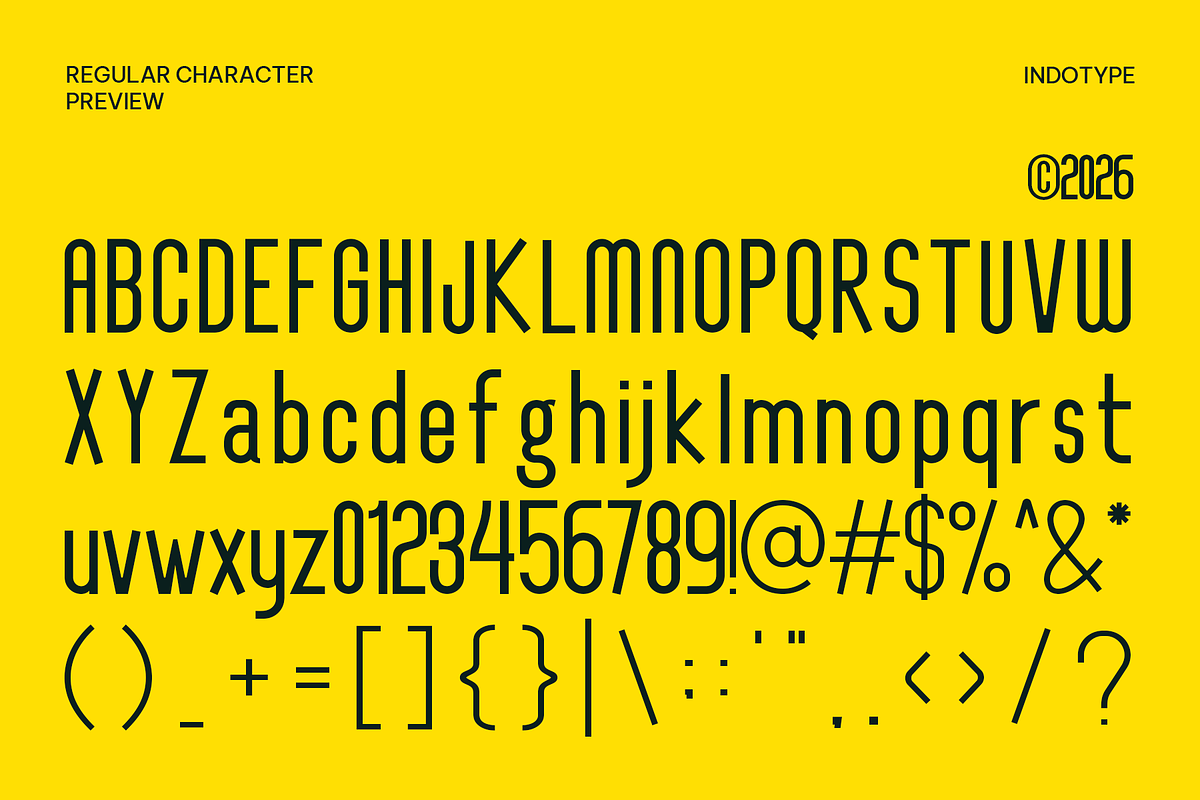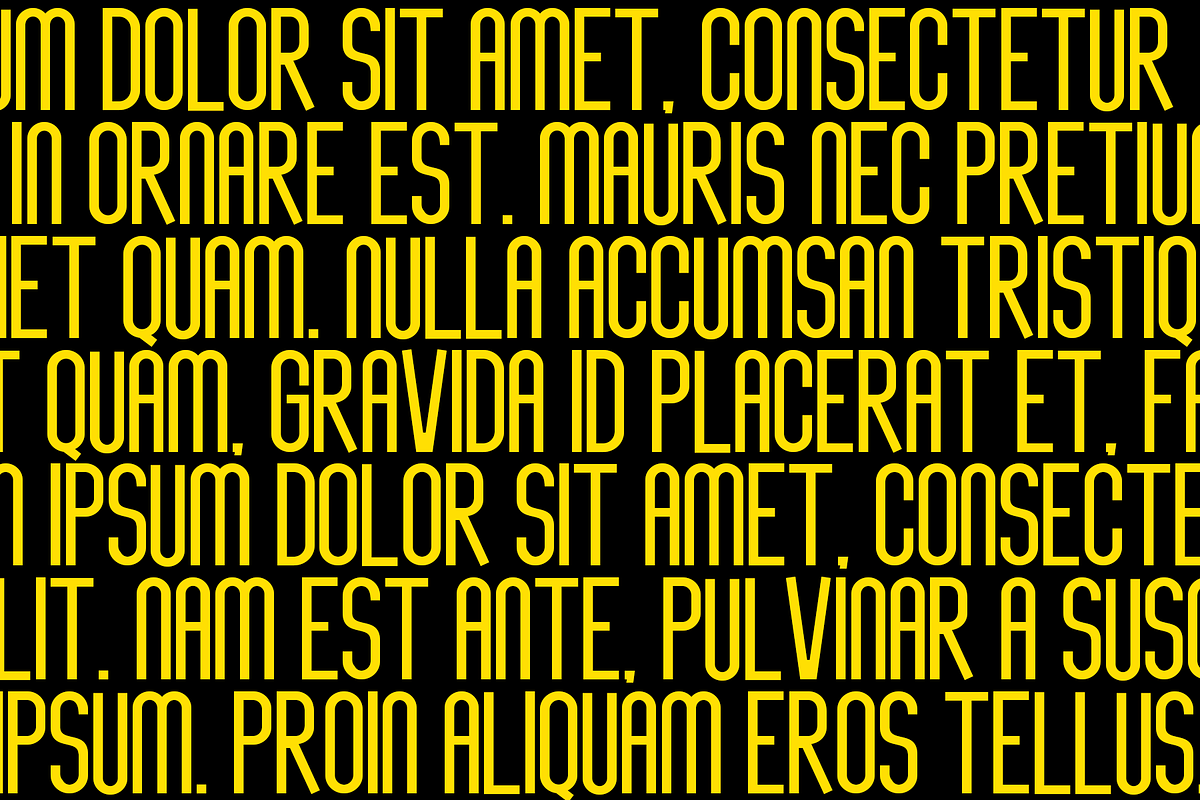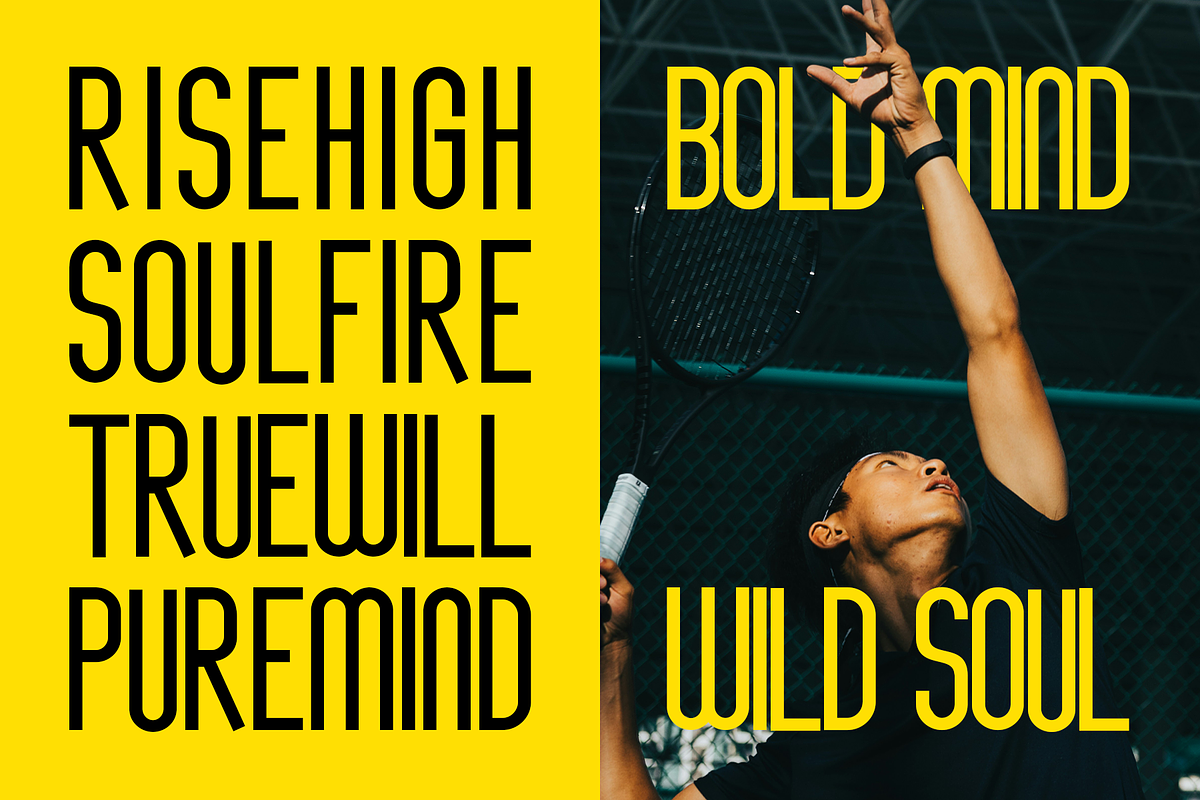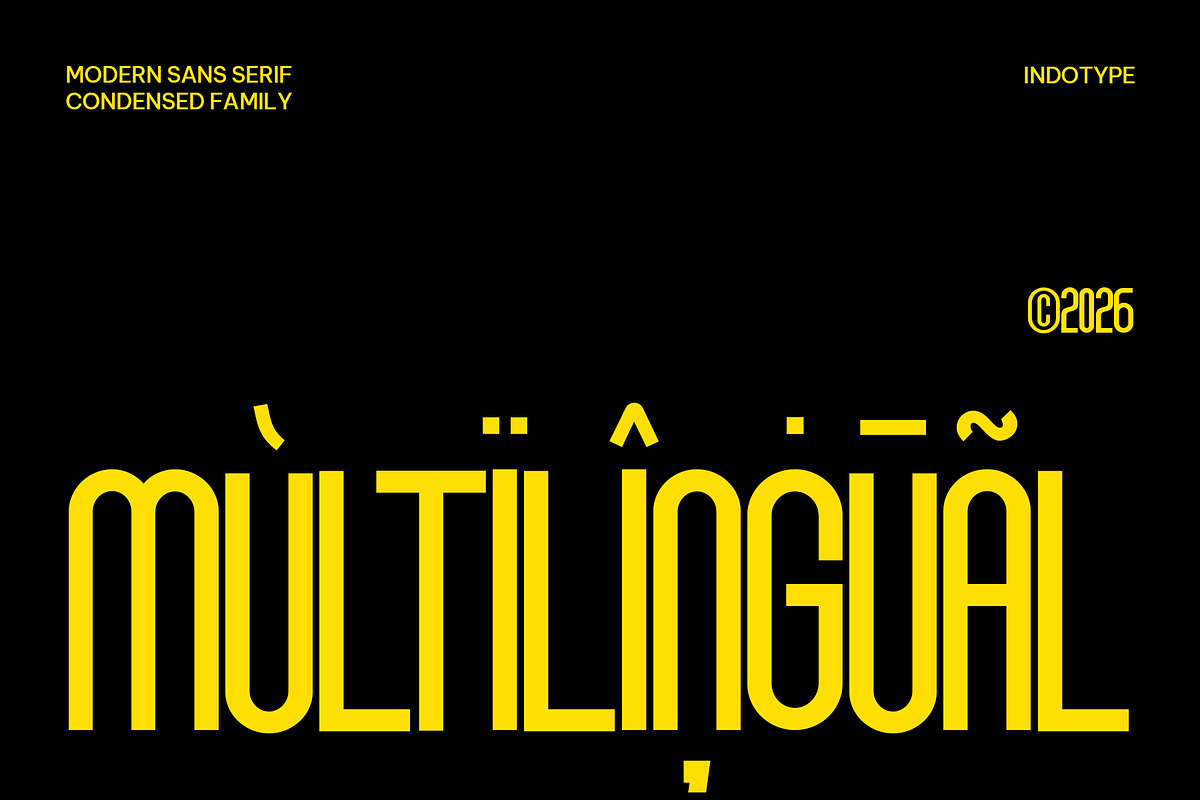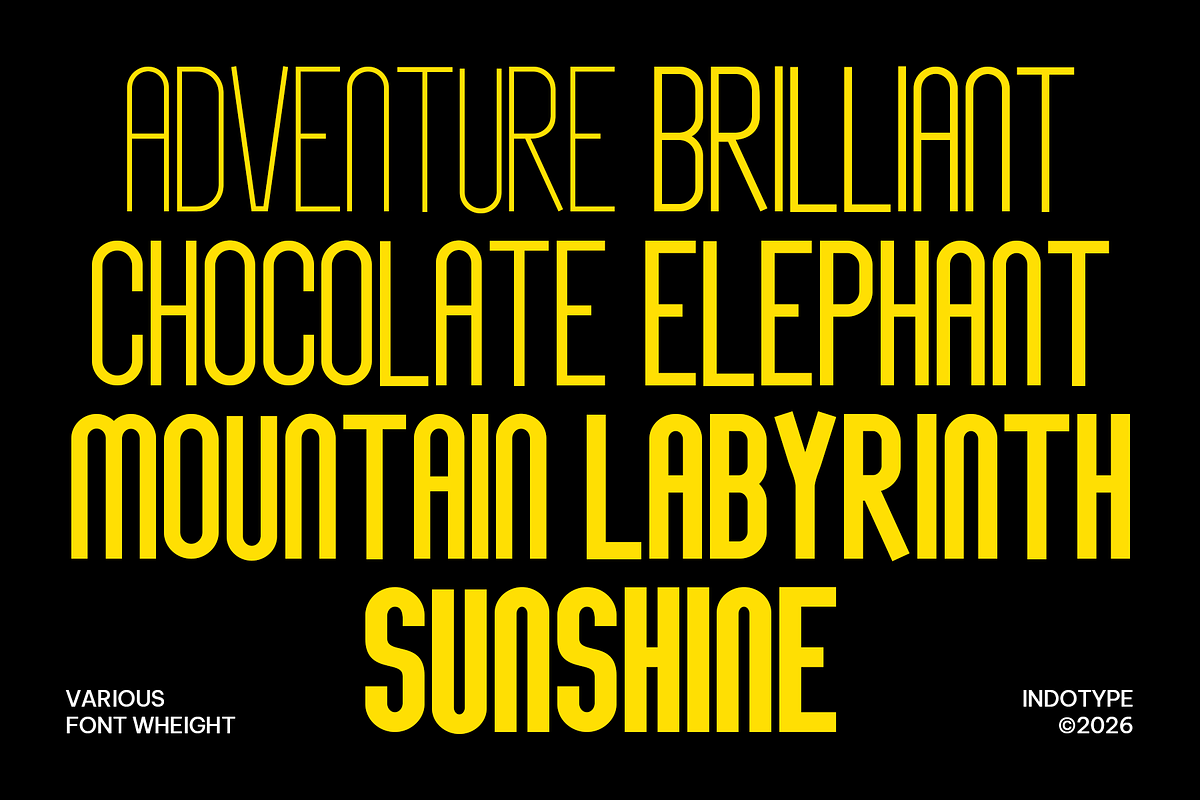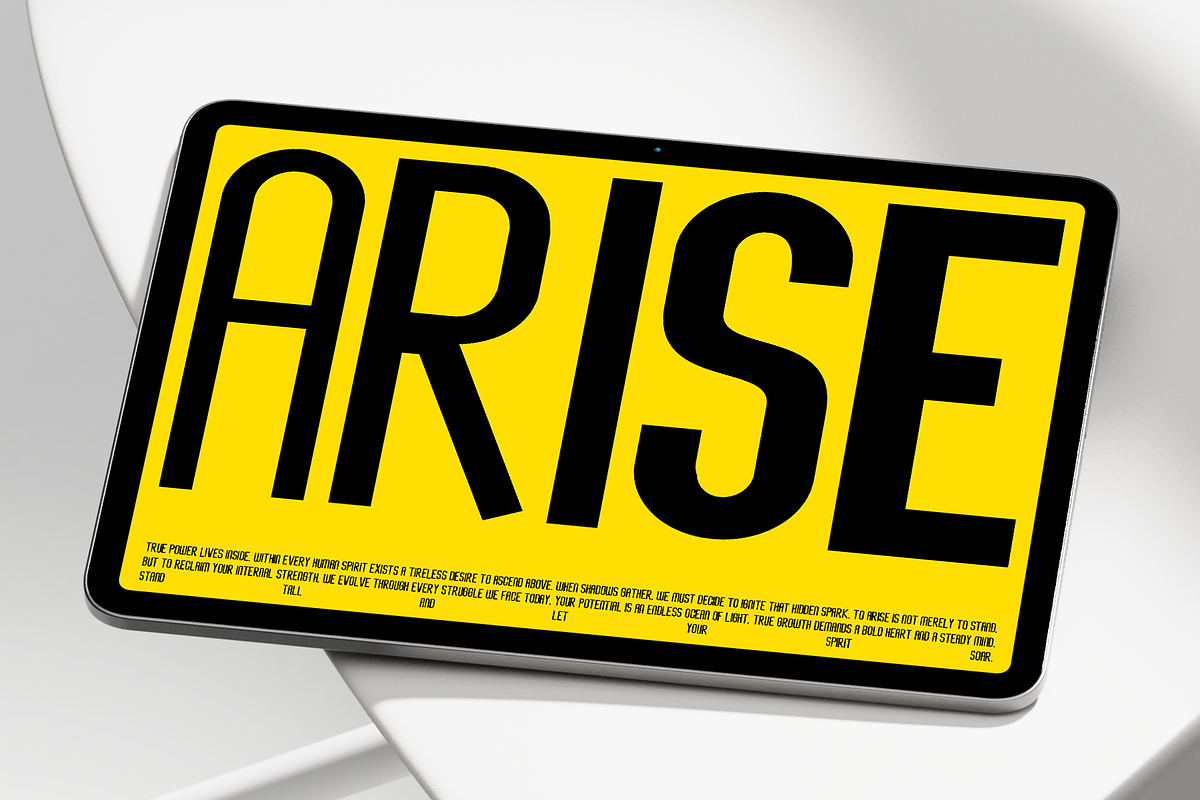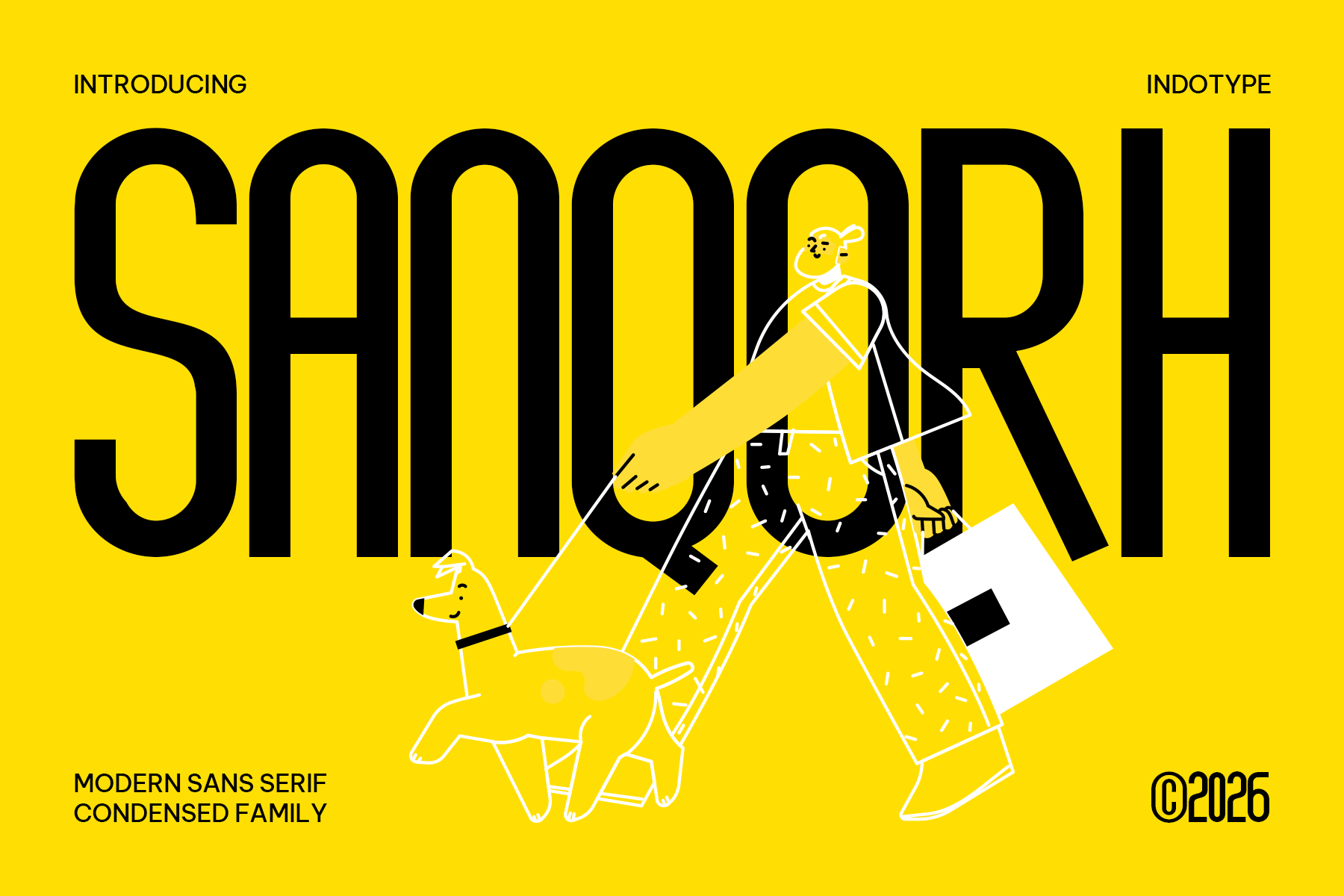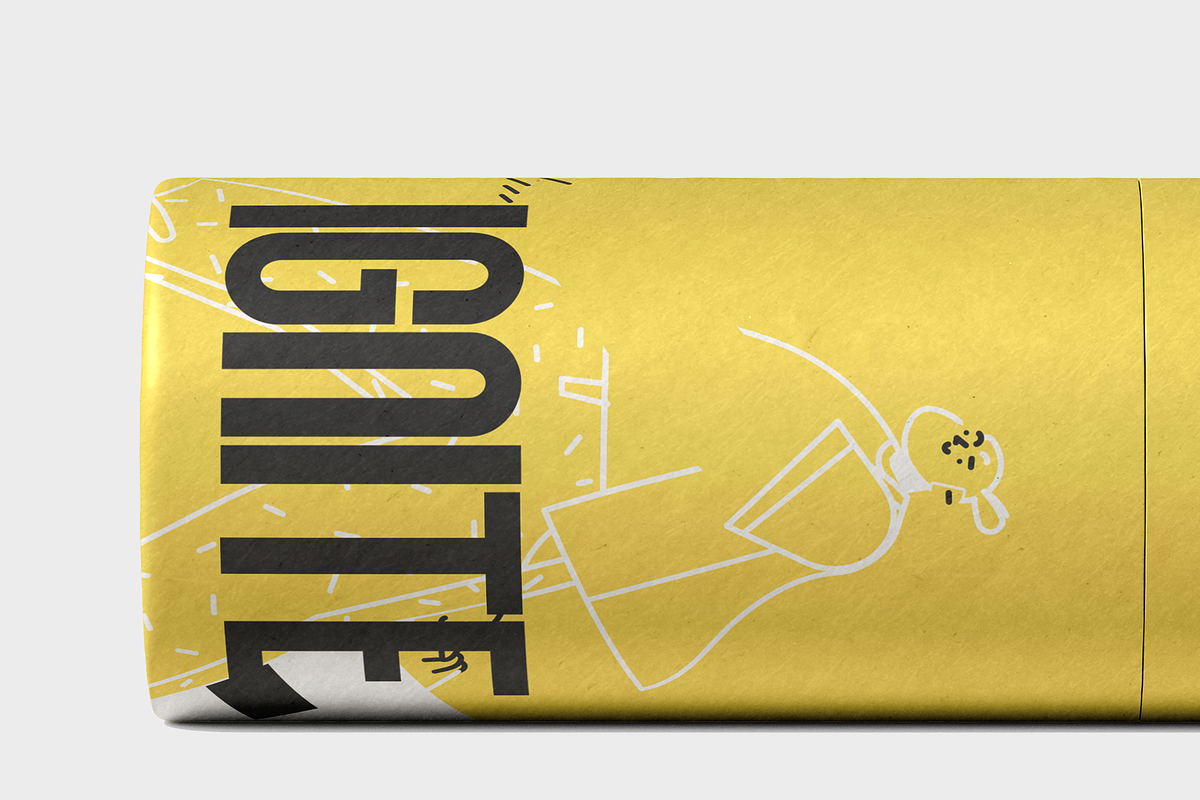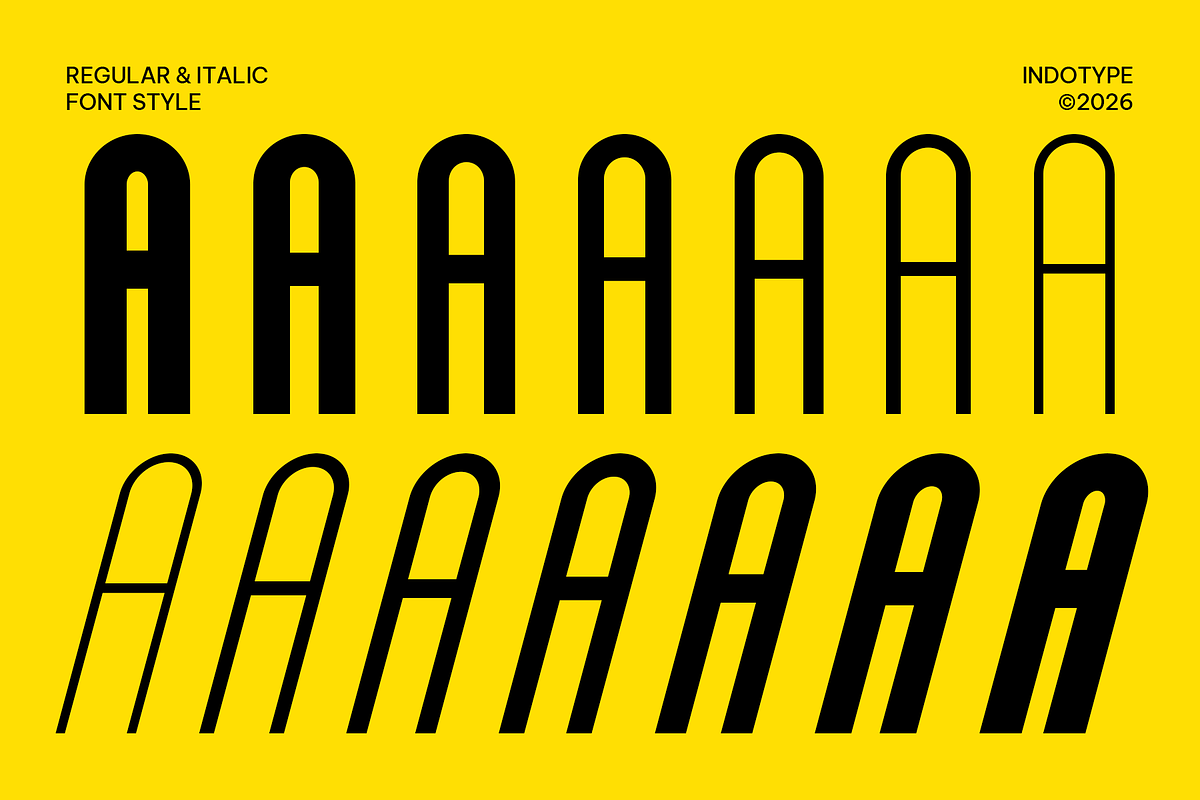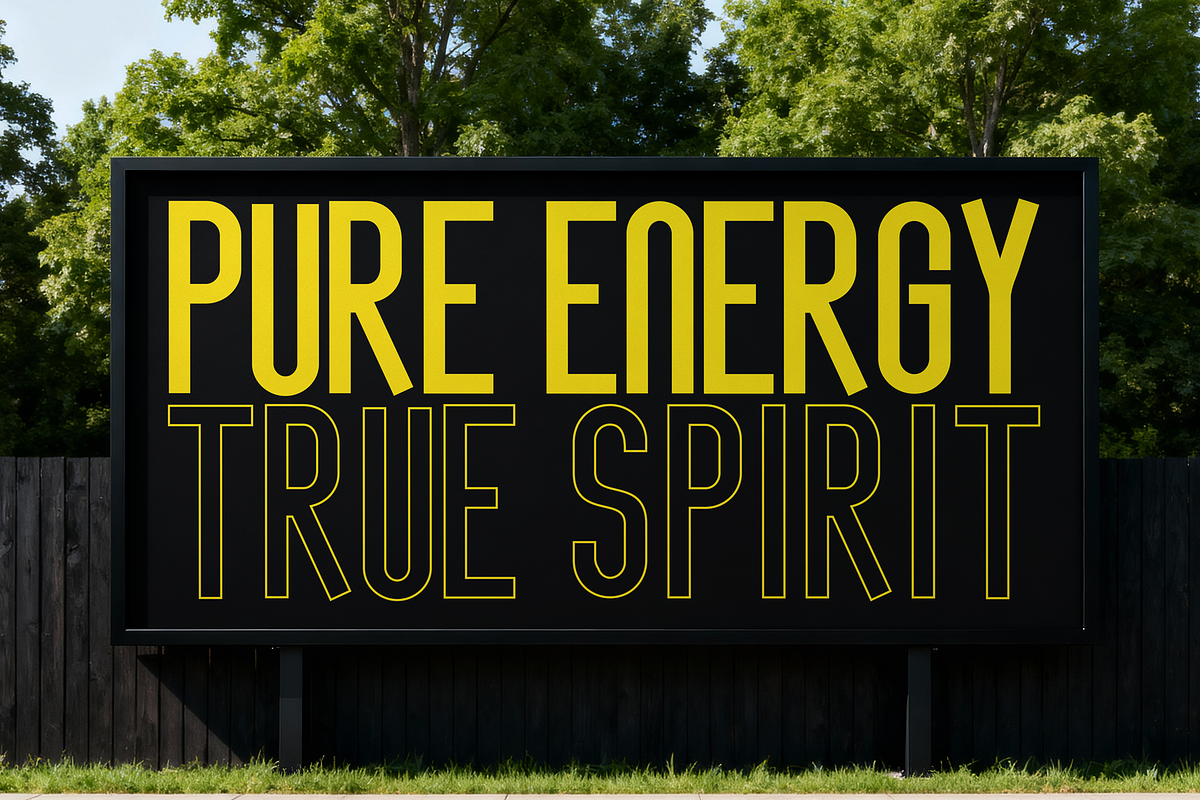
Sanqorh - Condensed Typeface Family
Sanqorh is a modern sans-serif condensed font family that brings together geometric precision, vertical efficiency, and a distinctive visual personality that sets it apart from the vast field of contemporary condensed type. Sanqorh delivers a complete condensed sans-serif system engineered for the demands of contemporary brand design, editorial typography, and high-impact visual communication. Where most condensed fonts sacrifice character in pursuit of neutrality, Sanqorh makes a different choice entirely — it is condensed with a point of view, narrow with intention, and precise with personality. This is a typeface that packs more design thinking per millimeter of horizontal space than most full-width families manage across their entire width. Where conventional condensed sans-serifs either abandon curves entirely in favor of geometric oval constructions or flatten their rounds into narrow ellipses, Sanqorh takes a third path: the curves of the circular letterforms are drawn at near-full radius, creating large, generously rounded bowls and counters that retain the visual warmth and legibility of a wide-proportion typeface within the tight horizontal footprint of a condensed design. The result is a set of letterforms that feel paradoxically spacious — tall and narrow in their overall envelope, yet open and breathable in their internal architecture.